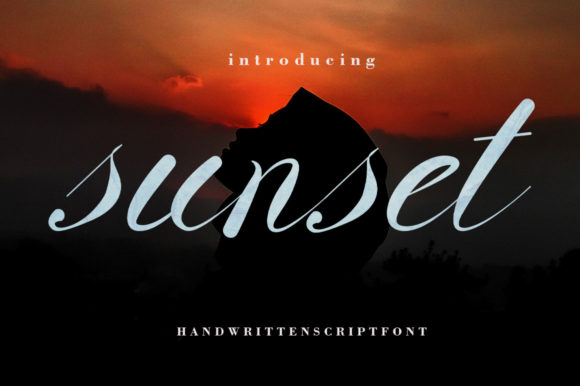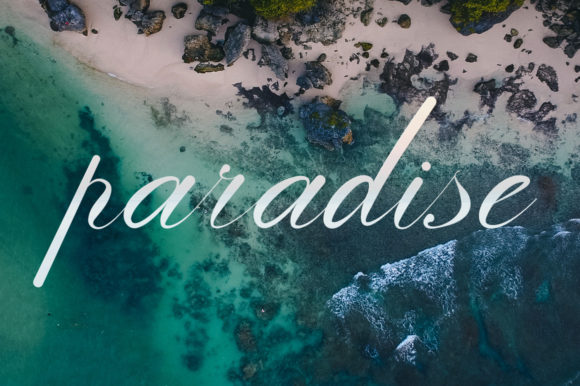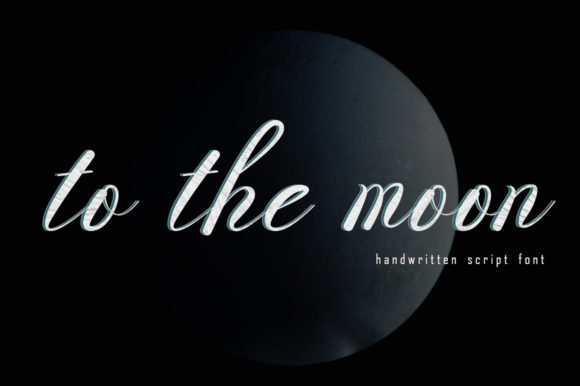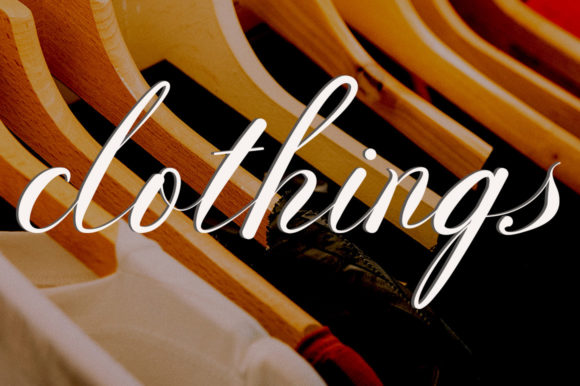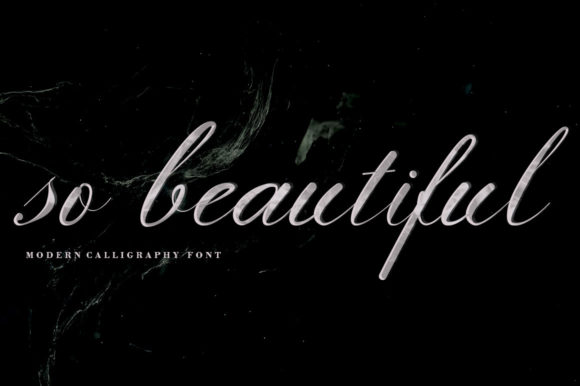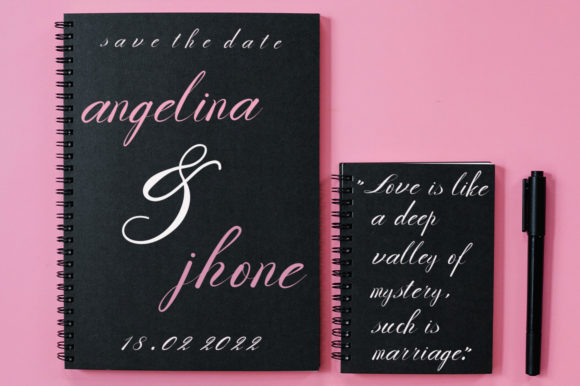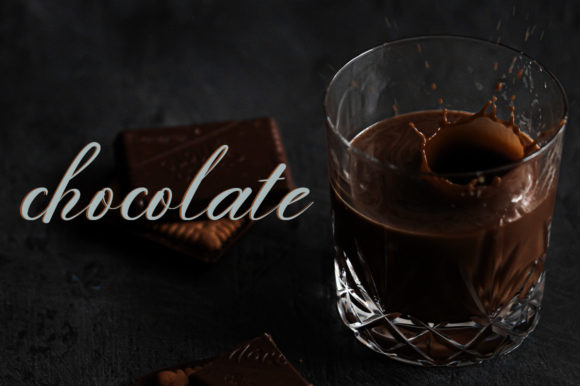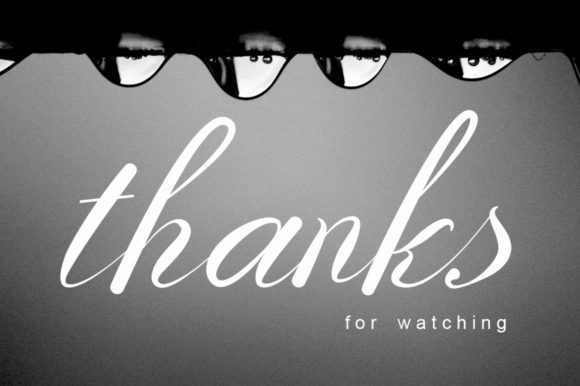
Sunset Font
About Sunset Font
Sunset is a stylish script font, featuring a beautiful flow. Add it confidently to your projects, and you will love the results.